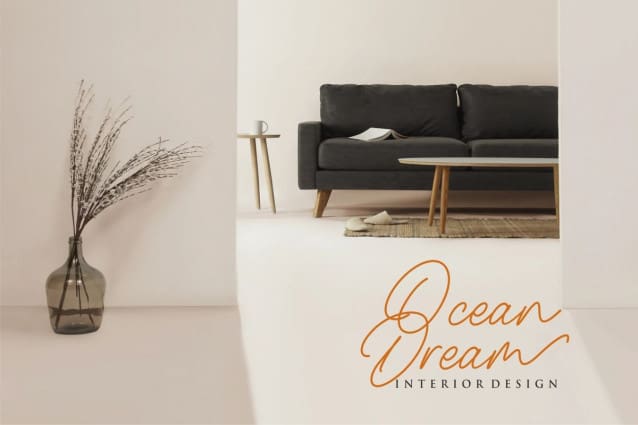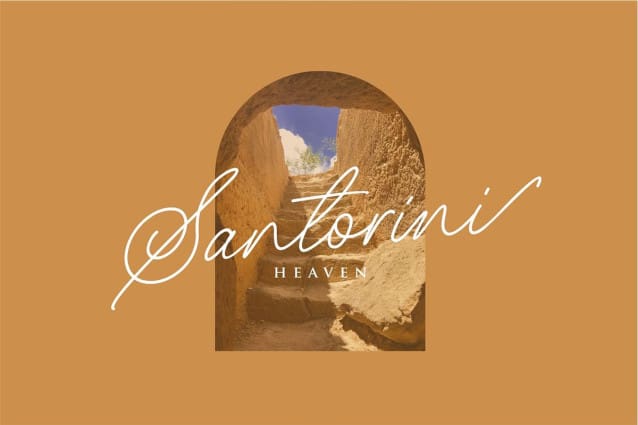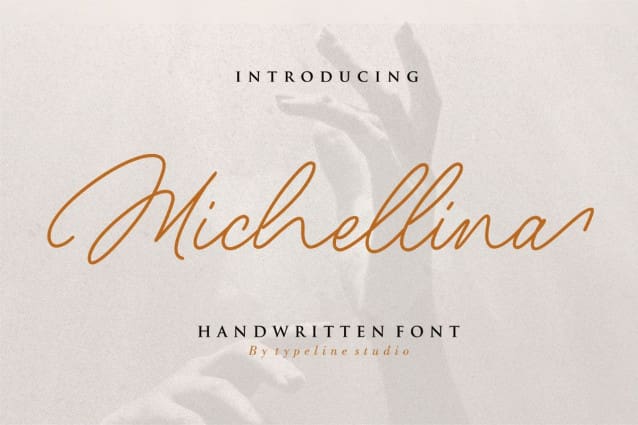
Michellina Handwritten Font
Michellina Handwritten Font is a new font that we created for the needs of writing names or logos for both personal and company, not too many styles but still classy and has a very unique style.
Michellina includes full set of hand lettered uppercase and lowercase letters, numerals, a large range of punctuation and ligatures. All lowercase letters include ending swashes, giving realistic hand-lettered style.